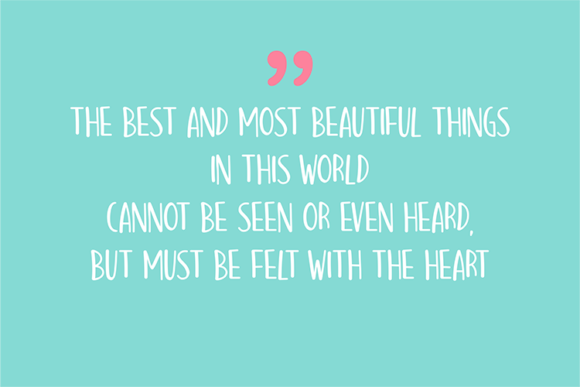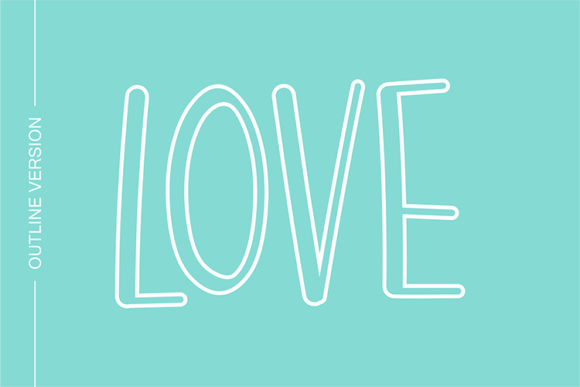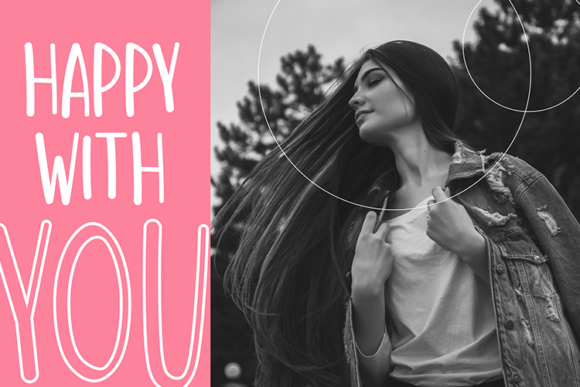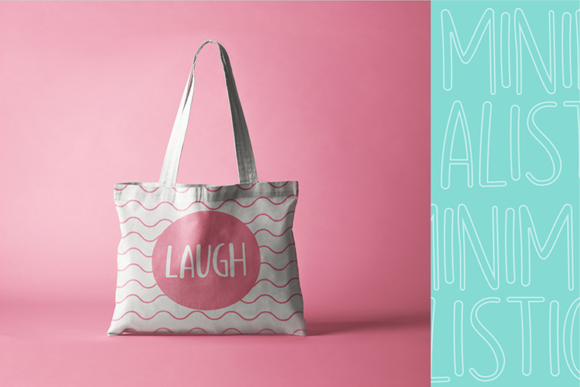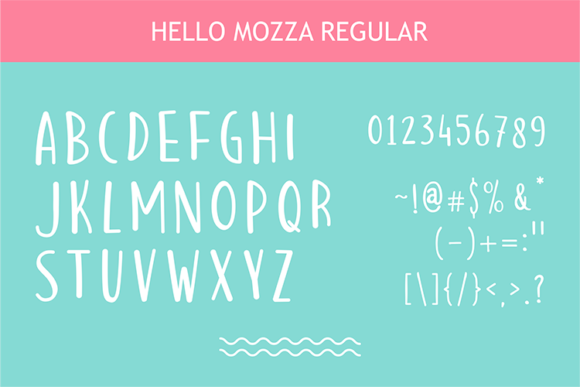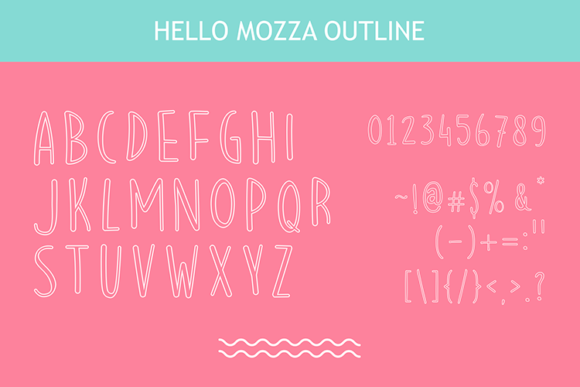
Introduction to Hello Mozza Font
The Hello Mozza is a lovely handwritten font.
Its unique flow and fun feel makes it perfect to use for quotes, logotype, badges, labels, packaging, or simply to use it in your next design project .
Key Features of Hello Mozza Font